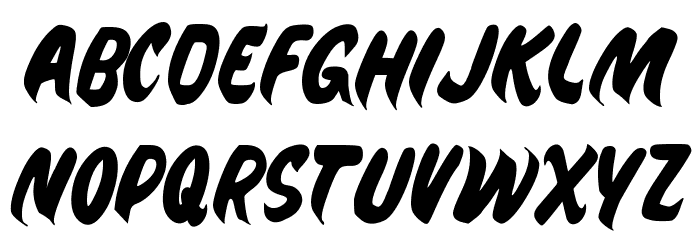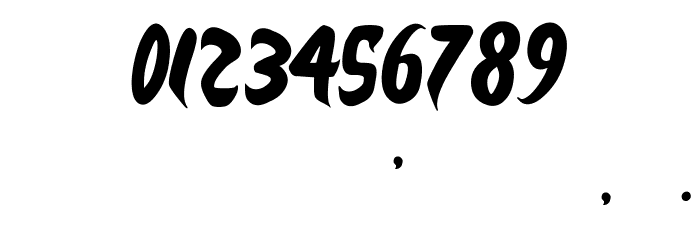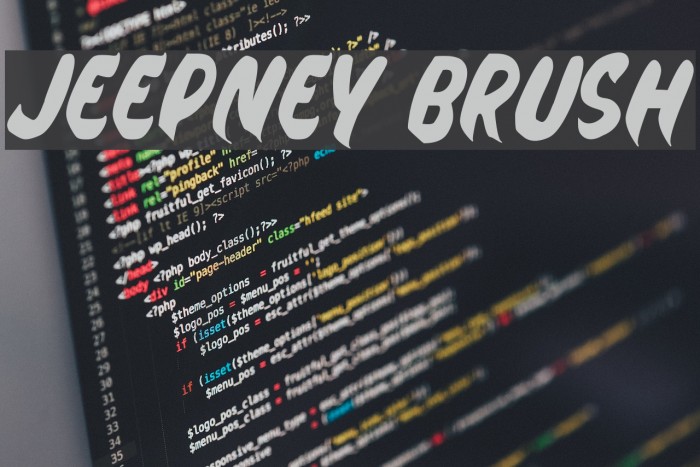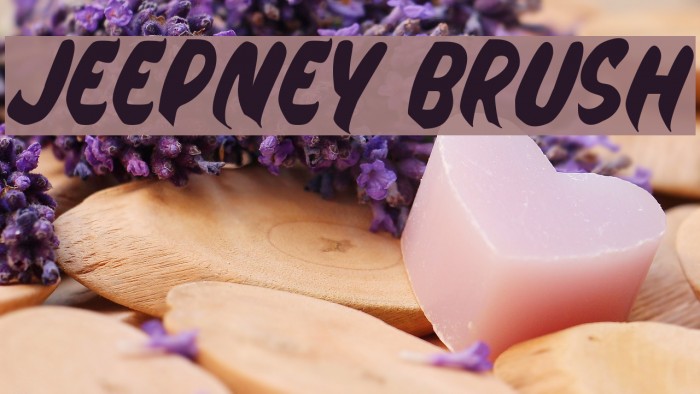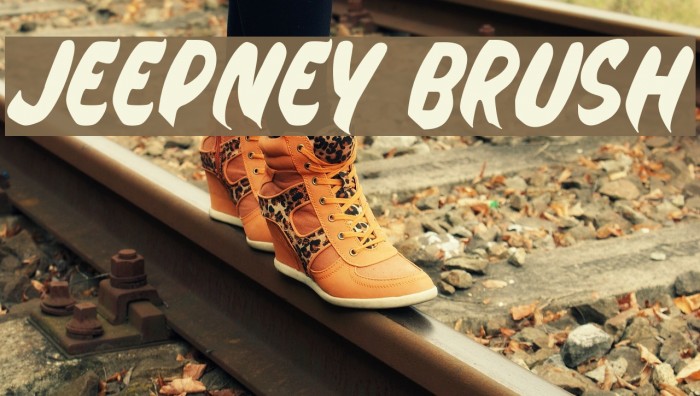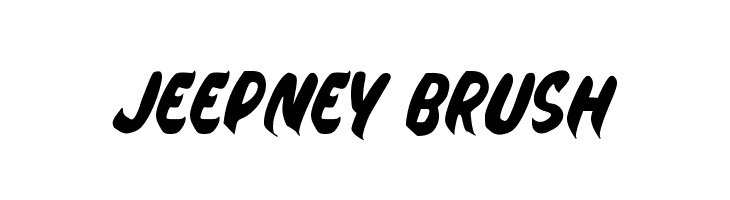
Jeepney Brush Font
This font exhibits a bold and dynamic brush style, characterized by its thick, sweeping strokes that convey a sense of movement and energy. The letters are slightly slanted, adding to the impression of speed and fluidity. The uppercase and lowercase characters maintain a consistent style, with rounded edges and a playful, informal appearance. The numbers and special characters are designed to match the overall aesthetic, ensuring a cohesive look across all elements. This font is ideal for projects that require a lively and engaging visual impact.
A bold, dynamic brush-style font with sweeping strokes and a playful appearance.
- Proposed Projects: Ideal for posters, branding, packaging, and any design needing a lively, energetic touch.